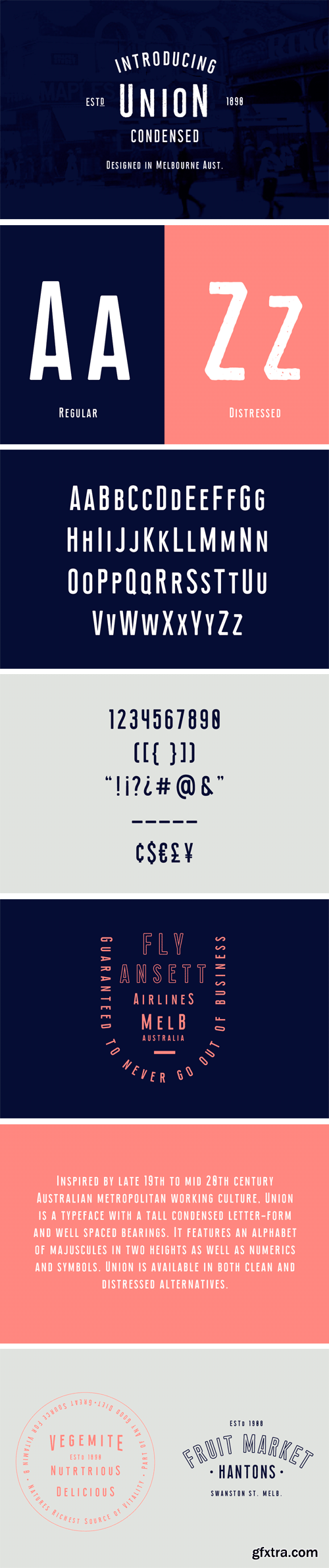
Union Condensed Typeface
Union condensed typeface inspired by late 19th to mid 20th century Australian metropolitan working culture, Union is a typeface with a tall condensed letter-form and well spaced bearings. It features an alphabet of majuscules in two heights as well as numerics and symbols. Union is available in both clean and distressed alternatives.